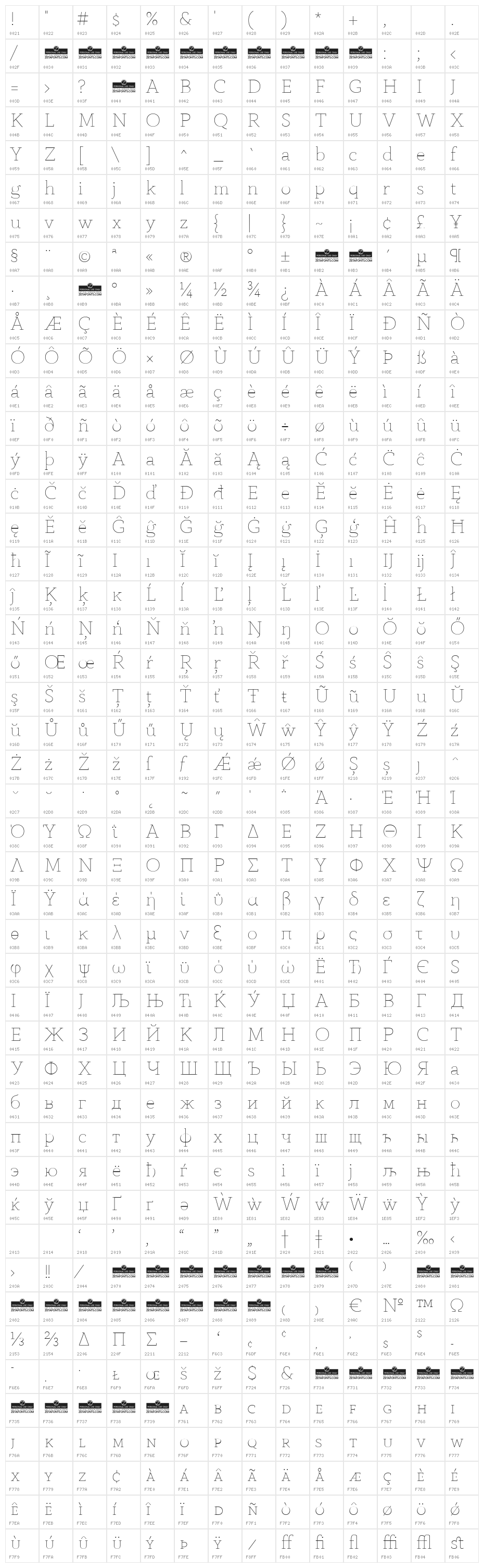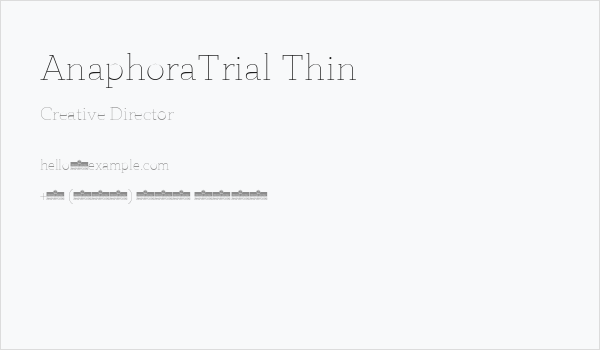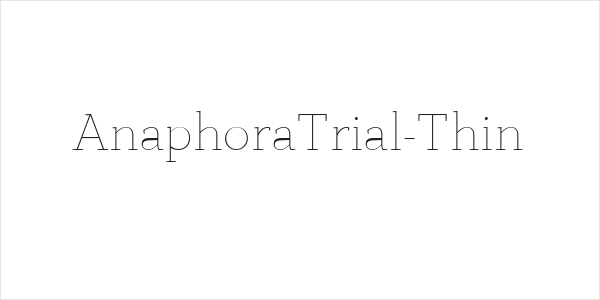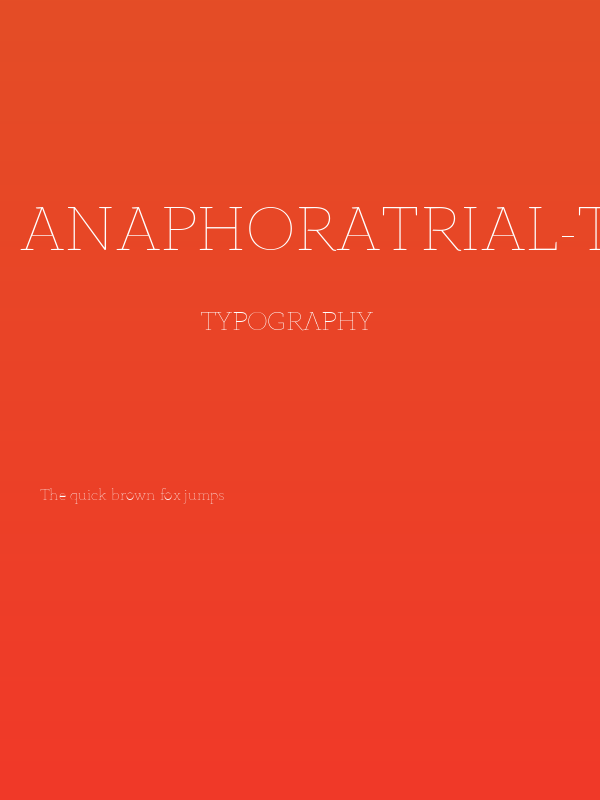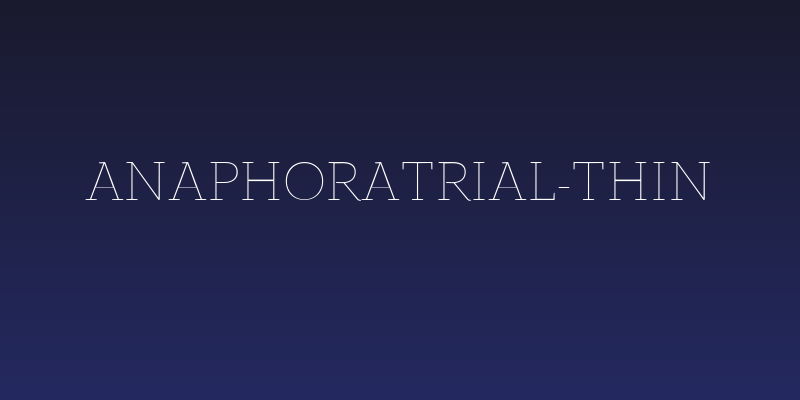
AnaphoraTrial-Thin Font
AnaphoraTrial-Thin Description
This font features a clean, minimalist design with thin, elegant strokes that convey a sense of modern sophistication. The uppercase and lowercase letters are well-proportioned, maintaining a consistent line weight throughout. The characters have a slight geometric influence, with sharp angles and smooth curves that enhance readability. The numerals and special characters are crafted with the same attention to detail, ensuring uniformity across all glyphs. This font's simplicity and clarity make it versatile for various design applications.
| Proposed Projects | Ideal for branding, editorial design, and minimalist web design projects. |